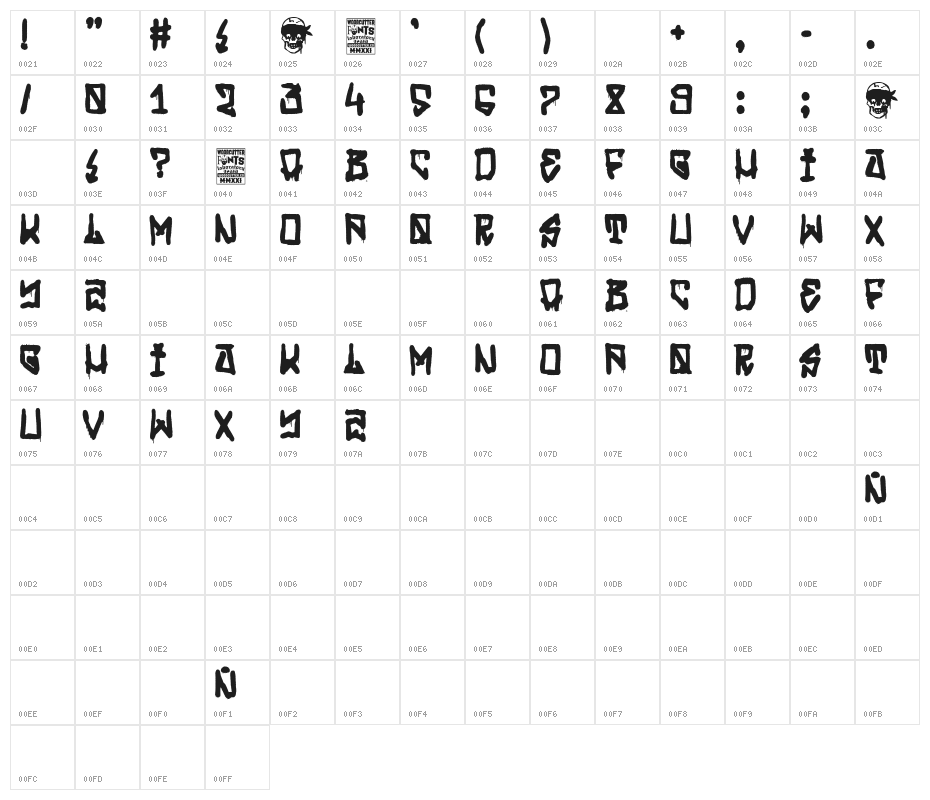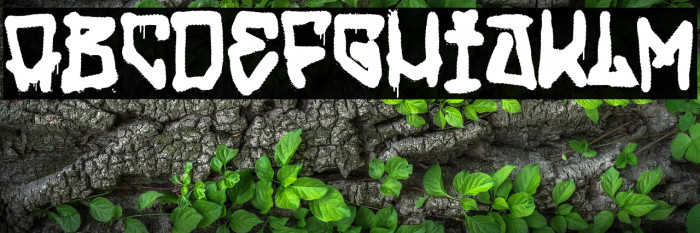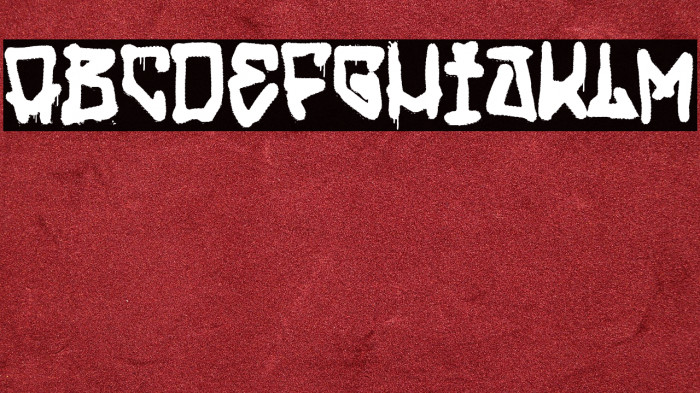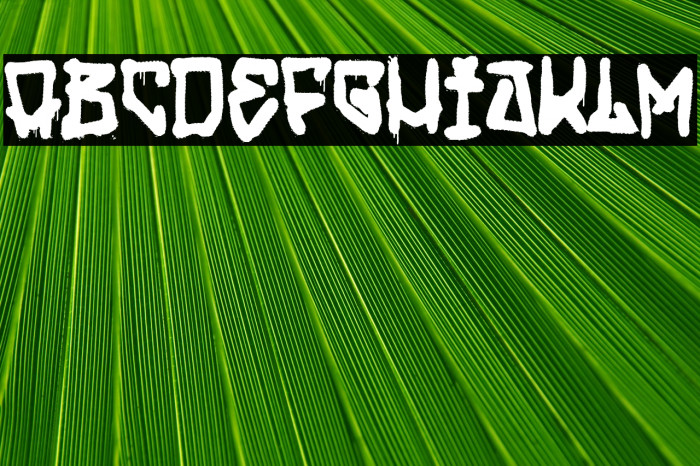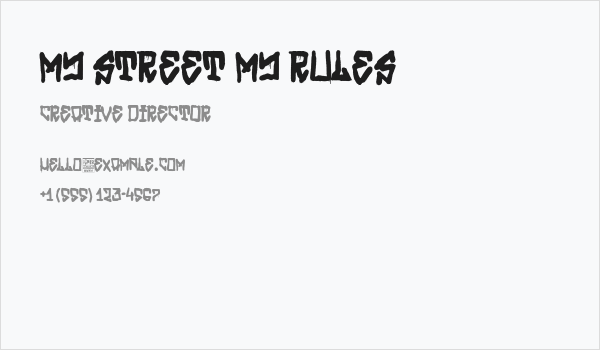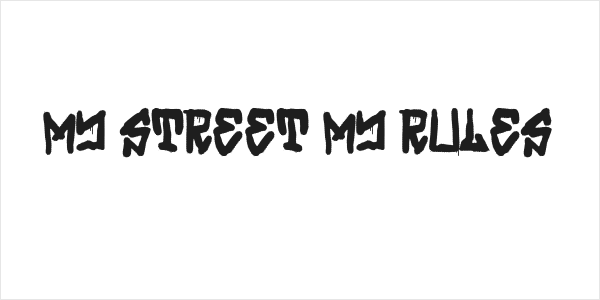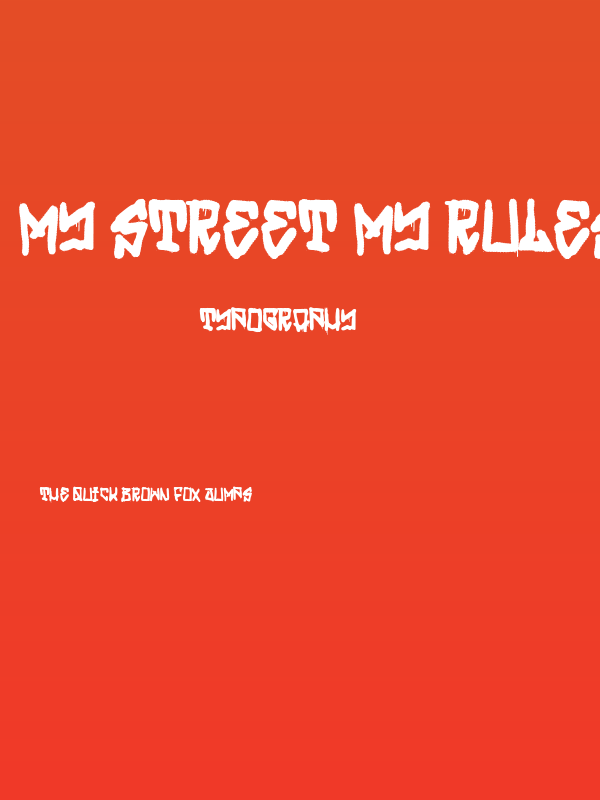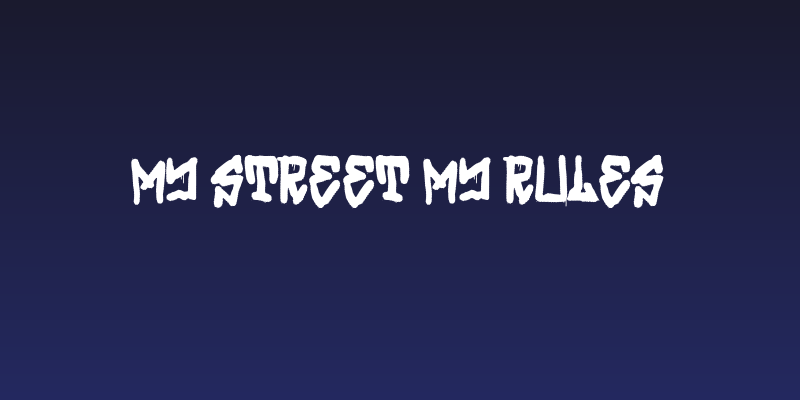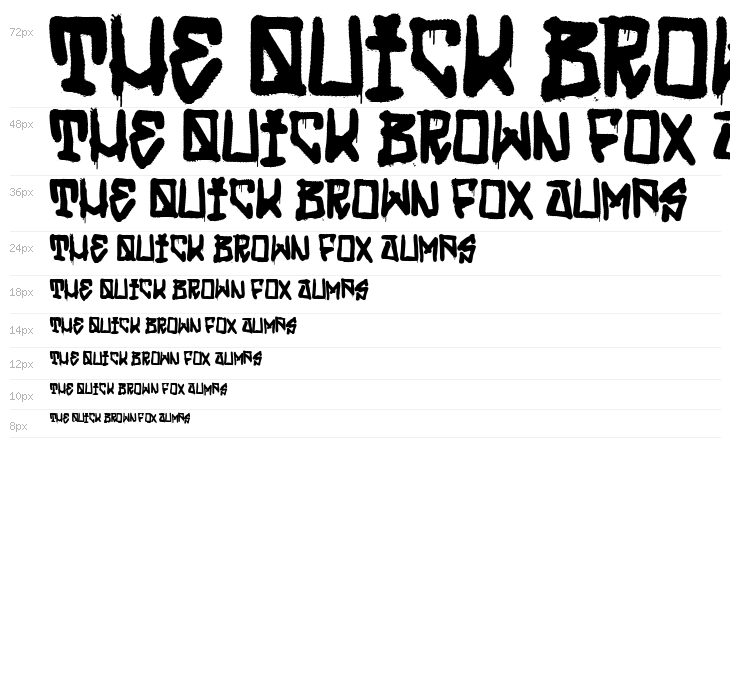
My Street My Rules Font
My Street My Rules Description
This font features a bold, graffiti-inspired style with a rugged and edgy appearance. The characters are designed with a rough, hand-drawn look, giving them a rebellious and urban vibe. The uppercase and lowercase letters maintain a consistent style, with angular and sharp edges that mimic the look of street art. Numbers and special characters follow the same aesthetic, ensuring a cohesive appearance across all text. The font's unique design makes it stand out, perfect for projects that require a strong and unconventional visual impact.
| Overall Style | Urban, Edgy, Rebellious |
| Proposed Projects | Ideal for street art designs, urban-themed posters, edgy branding, and music album covers. |